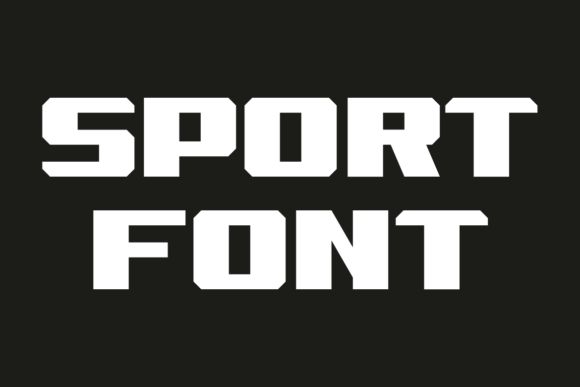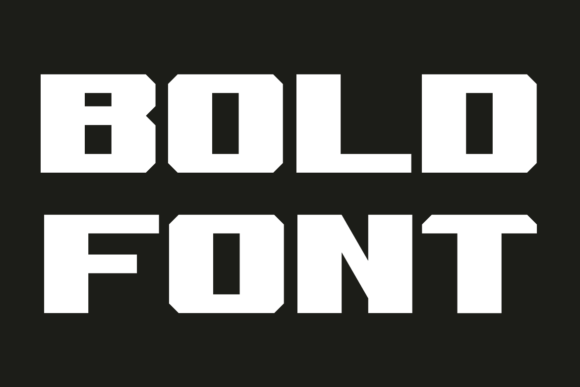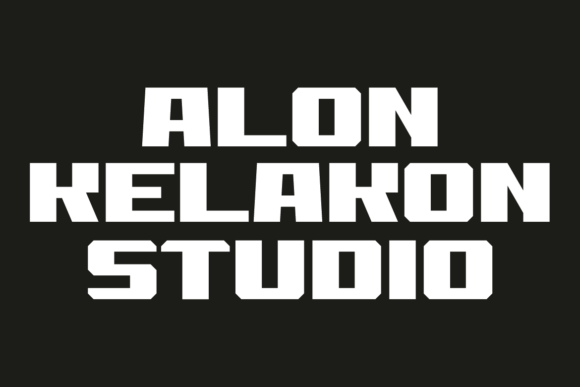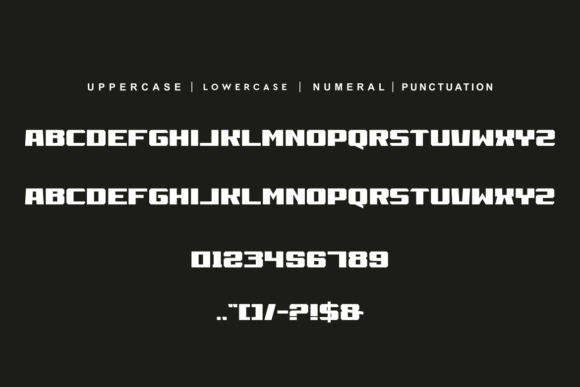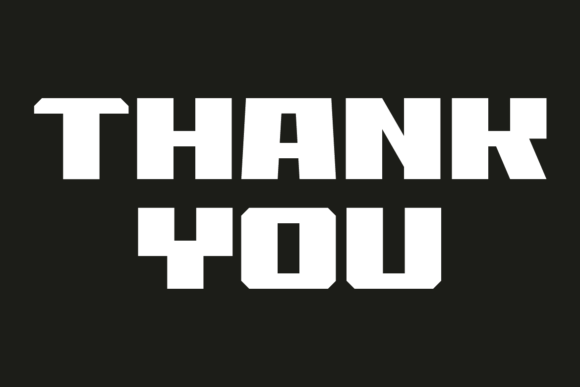
Hard Sport Font: A Playfully Nostalgic Sans Serif Font for Your Retro-Inspired Designs
Are you a designer or crafter looking to add a touch of nostalgia to your work? Look no further than the Hard Sport font, a sans serif font that exudes a vintage aesthetic that’s sure to transport you back in time. With its unique blend of playfulness and retro charm, Hard Sport is the perfect addition to any design project that requires a dash of nostalgia.
The Story Behind Hard Sport Font
Hard Sport font is a carefully crafted typeface that’s designed to evoke the spirit of classic sports equipment and vintage advertising. Its sans serif design gives it a clean and modern look, while its subtle imperfections and quirks add a touch of warmth and character. Whether you’re designing a logo, a poster, or a website, Hard Sport font is sure to bring a smile to your face and a sense of nostalgia to your audience.
Key Features of Hard Sport Font
- Unique Vintage Aesthetic: Hard Sport font boasts a distinctive vintage look that’s perfect for designs that require a retro touch.
- Playful and Nostalgic: This font is designed to evoke a sense of nostalgia and playfulness, making it ideal for designs that require a lighthearted and fun approach.
- Clean and Modern Sans Serif Design: Despite its vintage aesthetic, Hard Sport font features a clean and modern sans serif design that’s easy to read and versatile.
- Subtle Imperfections and Quirks: The font’s subtle imperfections and quirks add a touch of warmth and character, making it perfect for designs that require a human touch.
Use Cases for Hard Sport Font
Hard Sport font is incredibly versatile and can be used in a wide range of design projects, including:
- Logo Design: Add a touch of nostalgia to your logo with Hard Sport font, perfect for sports teams, food trucks, or retro-themed businesses.
- Poster Design: Create eye-catching posters for events, concerts, or exhibitions with Hard Sport font’s unique vintage aesthetic.
- Web Design: Add a retro touch to your website with Hard Sport font, perfect for blogs, portfolios, or e-commerce sites.
- Branding and Packaging: Use Hard Sport font to create custom branding and packaging for your products, adding a touch of nostalgia and personality to your brand.
Tips and Tricks for Using Hard Sport Font
To get the most out of Hard Sport font, here are some tips and tricks to keep in mind:
- Experiment with Colors: Hard Sport font looks great in a range of colors, so don’t be afraid to experiment and find the perfect combination for your design.
- Mix and Match with Other Fonts: Combine Hard Sport font with other fonts to create a unique and eye-catching design.
- Pay Attention to Kerning: Make sure to adjust the kerning to ensure that your text looks clean and easy to read.
Hard Sport font is a unique and versatile typeface that’s perfect for designers and crafters looking to add a touch of nostalgia to their work. With its playfully nostalgic and vintage aesthetic, this sans serif font is sure to transport you back in time and inspire your creativity. Whether you’re designing a logo, poster, or website, Hard Sport font is the perfect addition to any design project that requires a dash of retro charm.